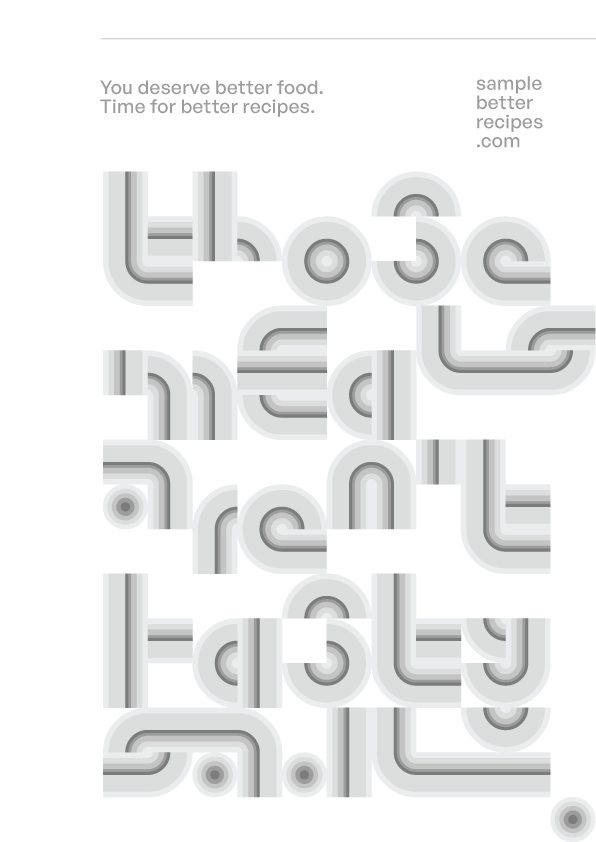
Been playing with my extra Colourcomp slots and layering the 'macaroni' bricks to see what shadowplay I can get out from it, resulting in what become as stated in the font name, Farop (Fanning a Ream of Paper).
I was inspired to indulge in the great abandonment of a typographic baseline when I saw how anotherSerif by Xiaoyuan Gao disregards its convention and produced a wonderfully cheery dot matrix font work. Thus, even with the limitations implemented by the 'ream' brick compositions, quirky glyphs can still be made out of them.
I have a feeling that I'll be disregarding baselines a lot more moving forward, ever since how the Numberscomp brought to my attention the energetic disposition of oldstyle numerals.
@Bryndan: Here are the individual 'macaroni' bricks I used to layer them over each other